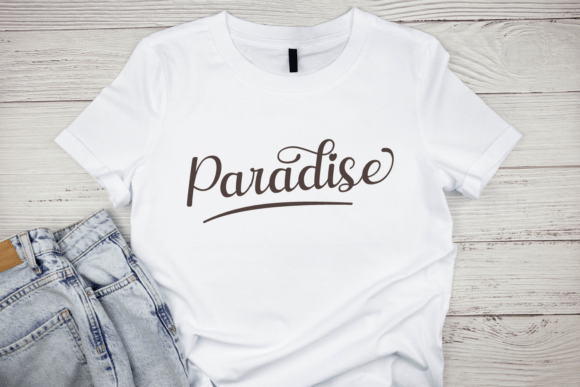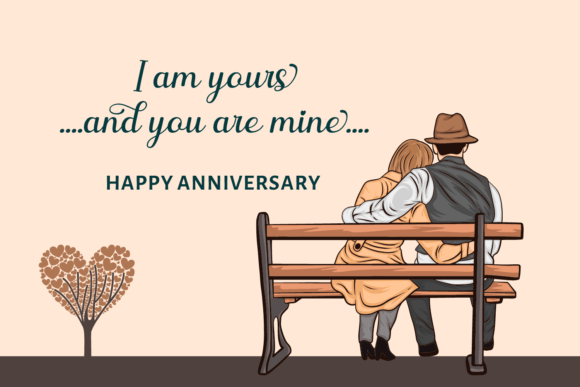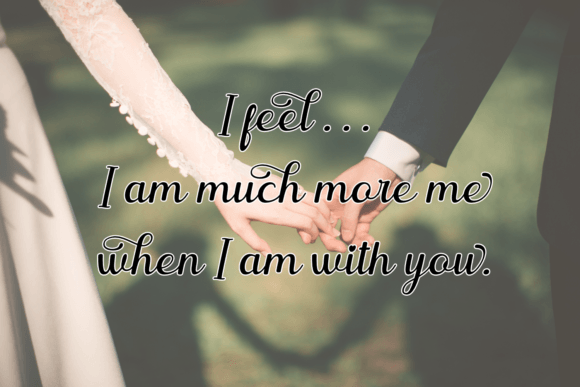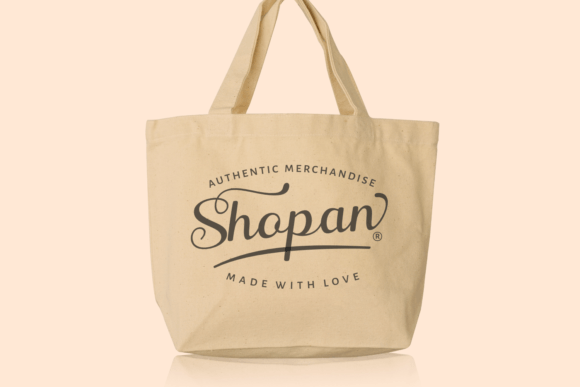
Introduction to Shandi Font
Shandi is a stunning script font.
The balance of fun and sophistication makes it versatile for various applications, including logos, invitations, product packaging, and social media graphics .
Key Features of Shandi Font
Why Choose Shandi Font?